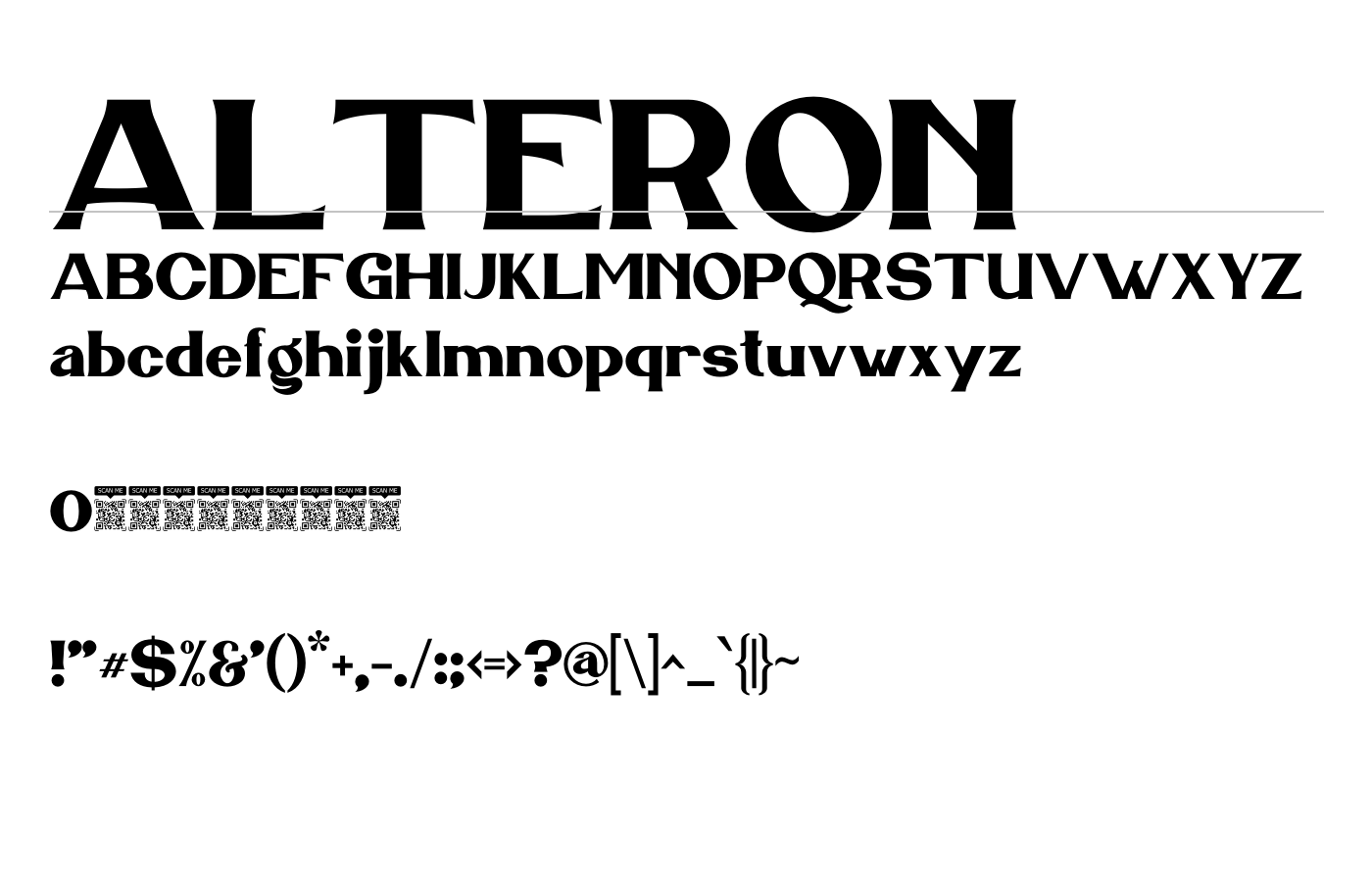
ALTERON is a bold, serif typeface with a distinctive, slightly condensed appearance and strong contrast between thick and thin strokes. Its sharp, bracketed serifs combined with unique letterforms like the curved Q tail and double-story lowercase 'g' give it a refined yet dynamic feel, making it ideal for elegant branding, headlines, and editorial design where a touch of modern sophistication is desired. This font works well to create commanding, luxurious visuals that stand out with personality and clarity.
ALTERON Font
About ALTERON Font
| Designer | Sarwo Edhi Prayitno |